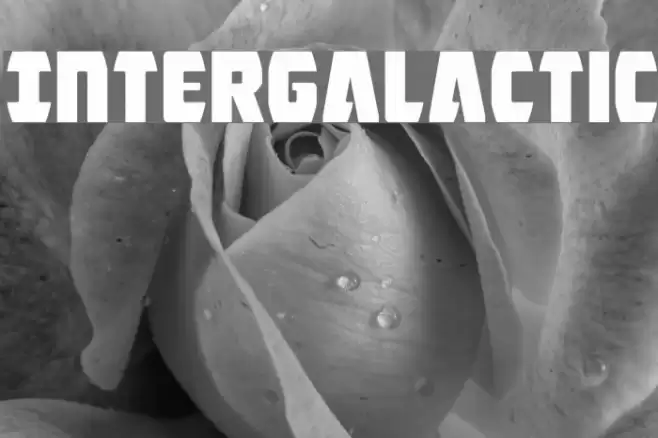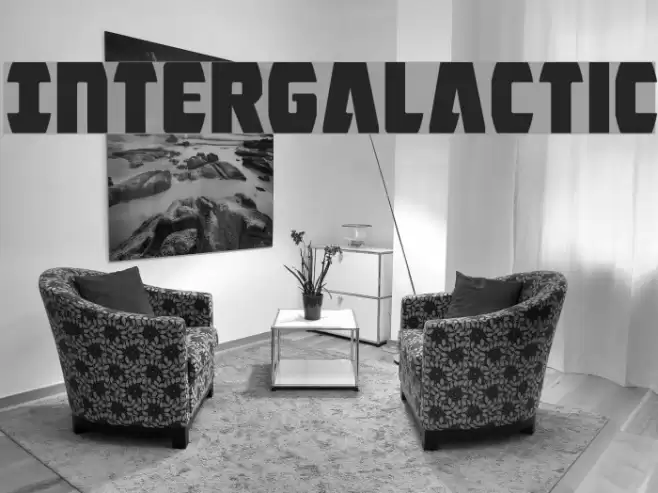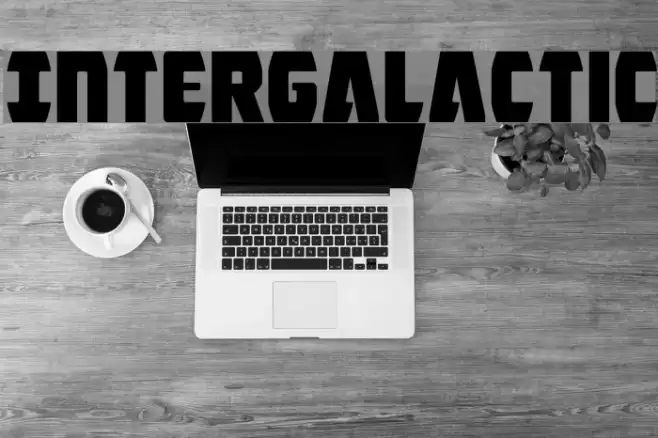
Intergalactic Font
Intergalactic Description
This font features a bold, futuristic design with geometric shapes and sharp angles. The characters are blocky and robust, giving a sense of strength and modernity. The uppercase and lowercase letters maintain a consistent style, with a uniform thickness that enhances readability. Numbers and special characters are designed to match the bold aesthetic, making them stand out. The font's overall appearance is striking and ideal for attention-grabbing headlines or logos. Its unique style is reminiscent of sci-fi themes, making it suitable for projects that require a modern and edgy look.
A bold, futuristic font with geometric shapes and sharp angles from Uncategorized fonts.
- Proposed Projects: Ideal for sci-fi themed projects, futuristic branding, video game titles, and technology-related designs.